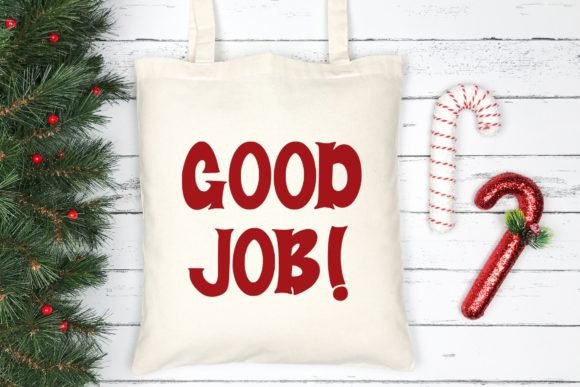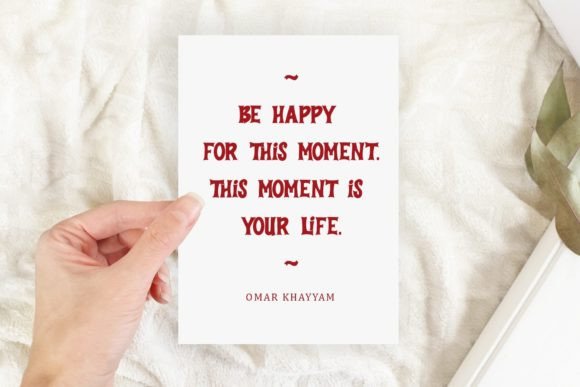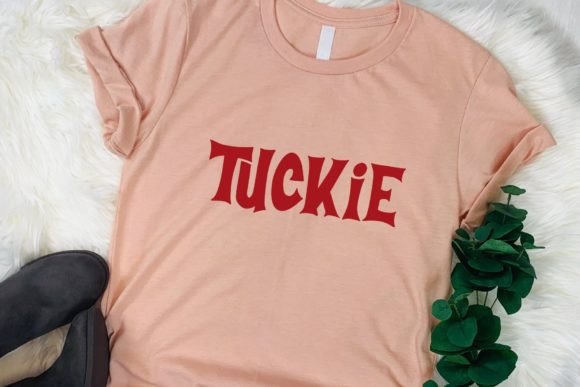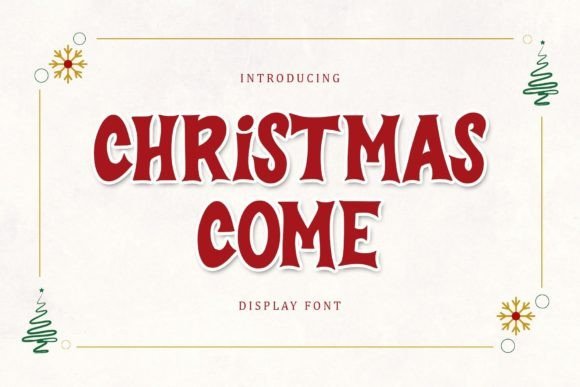
Introduction to Christmas Come Font
Christmas Come is a joyful and celebratory display font.
Whether you’re using it for crafts, digital design, presentations, or making Christmas cards, this font has the potential to become your favorite go-to font, no matter the occasion .
Key Features of Christmas Come Font
Why Choose Christmas Come Font?
Christmas Come Font offers exceptional quality and versatility, making it a valuable addition to your design toolkit. Whether you’re creating for personal projects or commercial use, Christmas Come Font delivers professional results.